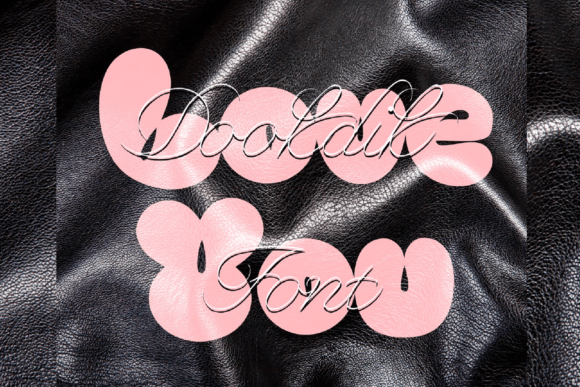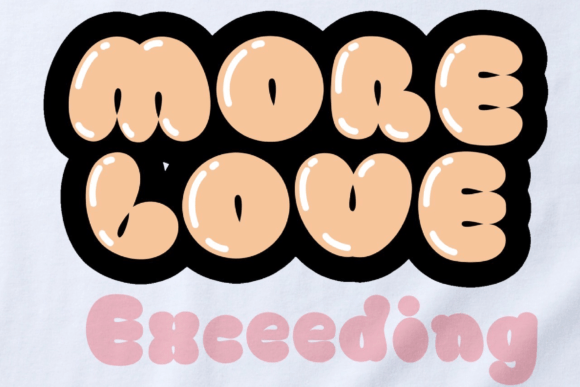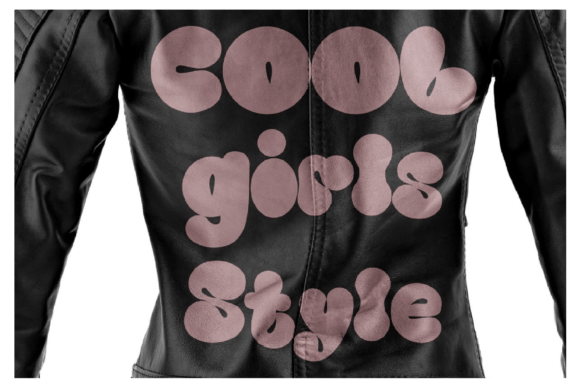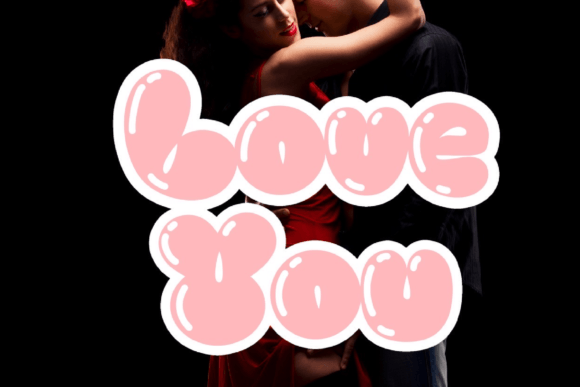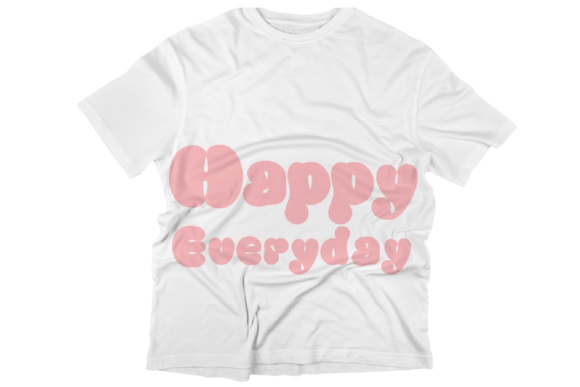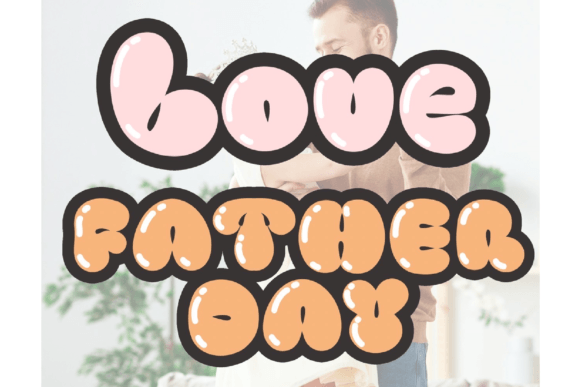
Introducing Dookdik Font: The Ultimate Multilingual Font for Designers and Crafters
Are you a designer or crafter looking for a versatile font that can elevate your projects to the next level? Look no further than Dookdik Font, a beautiful and highly functional font that supports hundreds of international language characters. In this article, we’ll explore the features and benefits of Dookdik Font, and why it’s the perfect addition to your design toolkit.
Multilingual Support
One of the standout features of Dookdik Font is its extensive multilingual support. With this font, you’ll have access to hundreds of international language characters, including English, French, Spanish, German, Polish, Italian, Portuguese, Latin, and many more. Whether you’re working on a project for a global client or simply want to add a touch of international flair to your designs, Dookdik Font has got you covered.
Cute and Versatile Design
Dookdik Font is not only functional but also adorable. Its unique design makes it perfect for a wide range of projects, from wedding invitations and greeting cards to logos, branding materials, business cards, quotes, posters, shirts, mugs, and more. The font’s playful and charming aesthetic is sure to capture the attention of your audience and leave a lasting impression.
With Dookdik Font, the design possibilities are endless. Here are just a few ideas to get you started:
- Quotes and posters
- T-shirts and apparel
- Mugs and ceramics
Why Choose Dookdik Font?
So why should you choose Dookdik Font for your design projects? Here are just a few reasons:
- Multilingual support: Reach a global audience with a font that supports hundreds of languages.
- Unique design: Stand out from the crowd with a font that’s both cute and versatile.
- Endless design possibilities: Use the font for a wide range of projects, from wedding invitations to logos and more.
Get Creative with Dookdik Font
If you’re looking for a font that can help you take your designs to the next level, look no further than Dookdik Font. With its multilingual support, cute design, and versatility, this font is sure to become a staple in your design toolkit. So why wait? Get creative with Dookdik Font today and see the amazing things you can create!
In conclusion, Dookdik Font is a must-have for designers and crafters who want to add a touch of international flair to their projects. With its extensive multilingual support, cute design, and versatility, this font is perfect for a wide range of applications. Whether you’re working on a wedding invitation, logo, or poster, Dookdik Font is the perfect choice. So go ahead, get creative, and see what amazing things you can create with Dookdik Font!